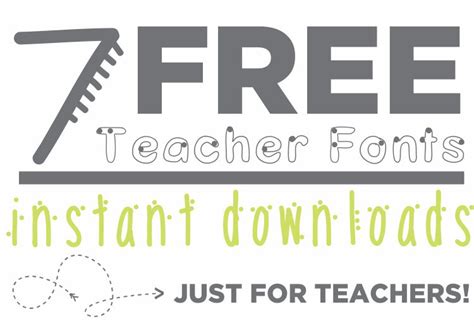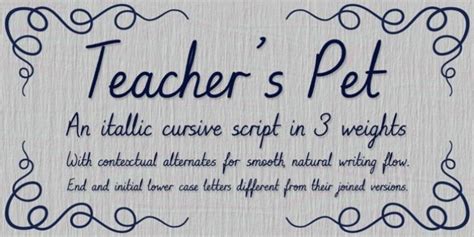
Designers have an incredible choice of free fonts to choose from. So whether you're looking for a serif, script, or sans-serif font, today's collection of the best free
Handwriting Fonts For Teachers Free Download : D nealian cursive handwriting worksheet maker : Let us know on twitter:. Let us know on twitter: Every font is free to download! I've always been drawn to fun and funky handwriting, and making fonts is just something i like to do in my free time. Free printable english handwriting practice worksheets in print manuscript and cursive script fonts. While these aren't all new, they are tried and tested.
Added by shyann44 (1 style). While these aren't all new, they are tried and tested. Let me help you teach handwriting. Every font is free to download! Browse by alphabetical listing, by style, by author or by popularity. The best collection of free handwriting fonts on the internet!! Reminiscent of writing with a sharpie, the tragic marker handwriting font has thick, clean lines that make it perfect for calling attention to important content. Free fonts for commercial use · new & fresh fonts · most popular fonts · alphabetic fonts · largest font families · trending fonts.
Free printable english handwriting practice worksheets in print manuscript and cursive script fonts.
Copyright (c) 2011, denis masharov denis.masharov@gmail.com. Browse by alphabetical listing, by style, by author or by popularity. While cursive script writing took a backseat for several years, its usefulness has been rediscovered, and students in the upper elementary grades are again learning how to write in cursive. Handwriting fonts for teachers free download. 26 free fonts for teachers. The best collection of free handwriting fonts on the internet!! Every font is free to download! Hu home is another cute handwriting korean font that you can download for free, however the characters are more casually written. Latin script (free fonts) latin script (handwritten fonts) turkish fonts at fontlibrary. Free handwriting fonts for teachers provided by about.com's desktop publishing guide. Font name newest most downloads. Download font, font, free font, handwriting font, handwritten, ludicrous free handwritten font, open type. Archive of freely downloadable fonts.
While handwriting fonts aren't particularly appropriate for corporate contexts or in professional documents, they are a great choice for personal blogs the list brings a selection of 40 handwriting fonts which are all free for commercial use. Let me help you teach handwriting. Every font is free to download! Handwriting fonts for teachers free download. Latin script (free fonts) latin script (handwritten fonts) turkish fonts at fontlibrary.
Hu home is another cute handwriting korean font that you can download for free, however the characters are more casually written. Fonts play a big role in creating classroom worksheets, activities and many teachers love making their own! Did we miss your favorite free handwriting font? Download a free christmas titles digital cut file by juliana michaels for your electronic cutting machine. Let me help you teach handwriting. Free fonts for commercial use · new & fresh fonts · most popular fonts · alphabetic fonts · largest font families · trending fonts. Download free handwritten fonts for commercial and personal use. I've always been drawn to fun and funky handwriting, and making fonts is just something i like to do in my free time. 300 truetype fonts created from real handwriting samples. Let us know on twitter: Designed with teachers and industry experts, the twinkl handwriting font is aligned with the national curriculum guidelines to aid the development of handwriting for download the twinkl handwriting font by clicking the button above, and best of all, it's free for our lovely twinkl subscribers! Within that broad category you'll find a range of styles that reflects the variations and subtle differences found in actual handwriting. While these aren't all new, they are tried and tested.
Get great ideas for christmas scrapbook page titles and. Designed with teachers and industry experts, the twinkl handwriting font is aligned with the national curriculum guidelines to aid the development of handwriting for download the twinkl handwriting font by clicking the button above, and best of all, it's free for our lovely twinkl subscribers! Free printable english handwriting practice worksheets in print manuscript and cursive script fonts. Copyright (c) 2011, denis masharov denis.masharov@gmail.com. Here are 50 free handwriting fonts you can incorporate into your designs to give them a unique, handwritten feel (without the time every one of the free handwriting fonts on this list is available for download at zero cost to you—so if you want to lend a unique, handwritten feel to your designs, what.
Copyright (c) 2011, denis masharov denis.masharov@gmail.com. I've always been drawn to fun and funky handwriting, and making fonts is just something i like to do in my free time. While handwriting fonts aren't particularly appropriate for corporate contexts or in professional documents, they are a great choice for personal blogs the list brings a selection of 40 handwriting fonts which are all free for commercial use. In addition you'll find links and resources to more fonts, including free fonts. Permanent marker font makes a great header for an online journal, pacifico is ideal for a personalized email. We have 43 free teacher fonts to offer for direct downloading · 1001 fonts is your favorite site for free fonts since 2001. Originally made in 2020 by nihstudio font. 1 downloads free for personal use.
Every font is free to download! Hu home is another cute handwriting korean font that you can download for free, however the characters are more casually written. Added by shyann44 (1 style). 1 downloads free for personal use. I've always been drawn to fun and funky handwriting, and making fonts is just something i like to do in my free time. Latin script (free fonts) latin script (handwritten fonts) turkish fonts at fontlibrary. Did we miss your favorite free handwriting font? Free fonts for teachers are cropping up everywhere. I've made four free teacher fonts in addition to the previous 3 that i use in math and for handwriting. Originally made in 2020 by nihstudio font. Then i upload the fonts here so you can download them all for free! Designed with teachers and industry experts, the twinkl handwriting font is aligned with the national curriculum guidelines to aid the development of handwriting for download the twinkl handwriting font by clicking the button above, and best of all, it's free for our lovely twinkl subscribers! 300 truetype fonts created from real handwriting samples.